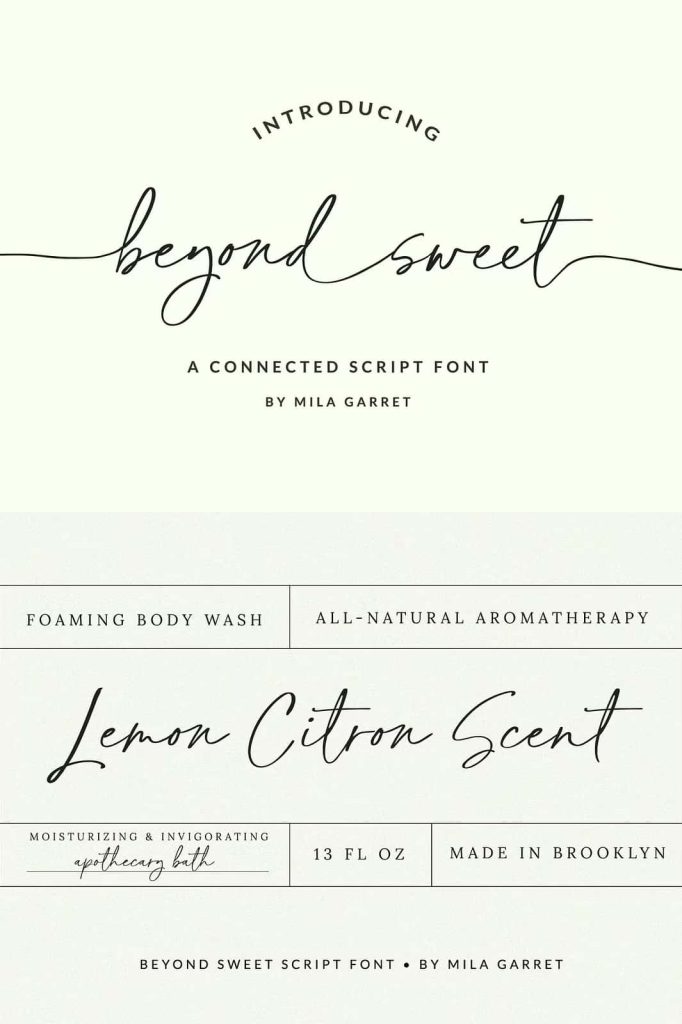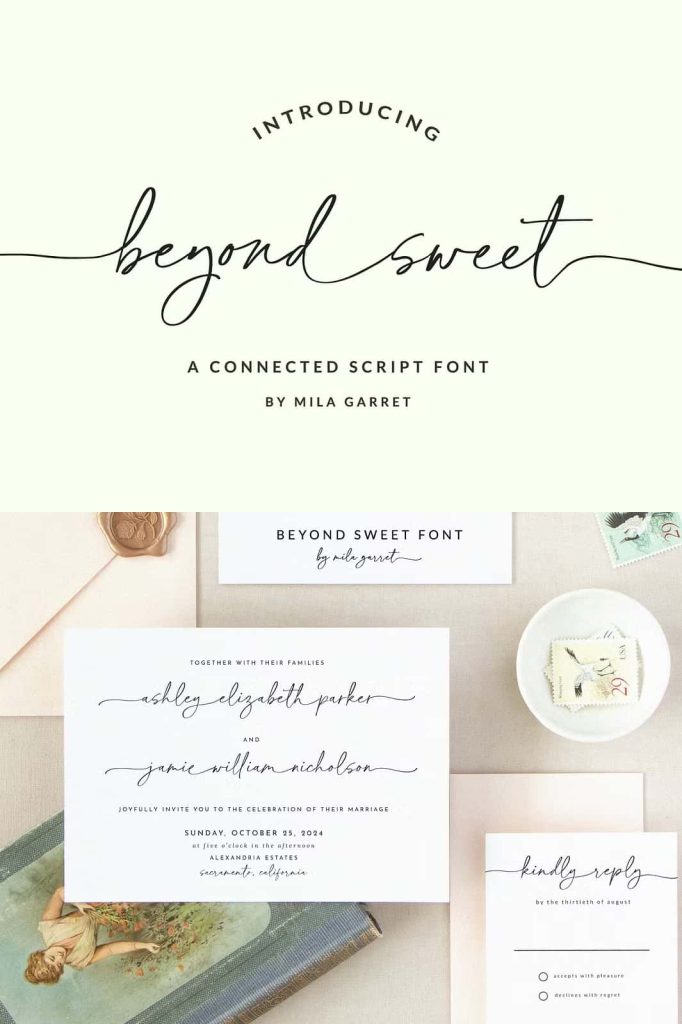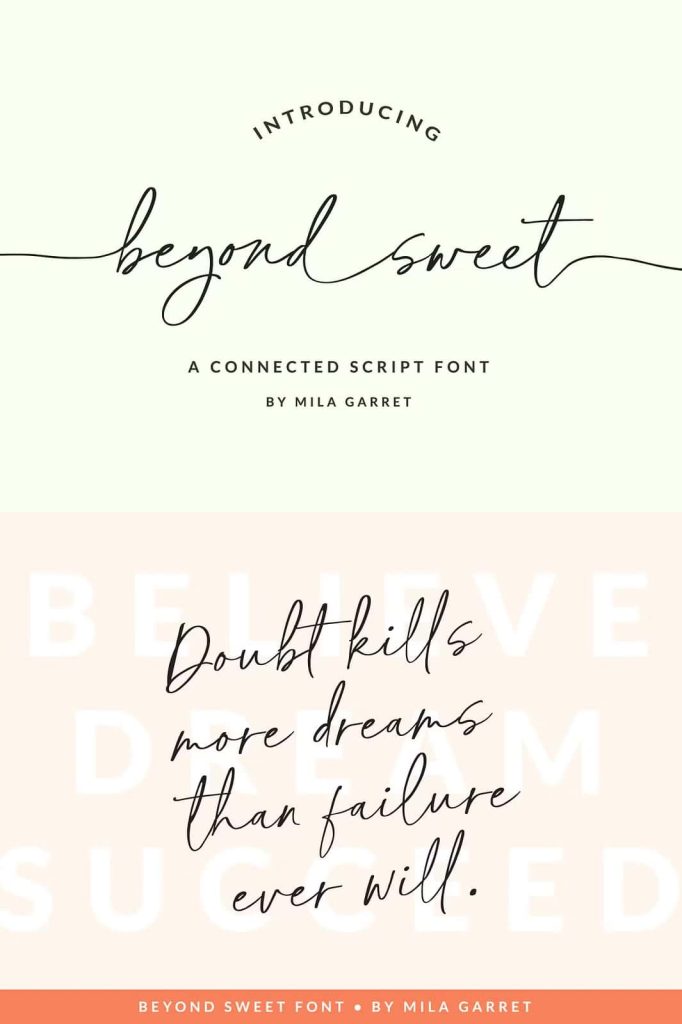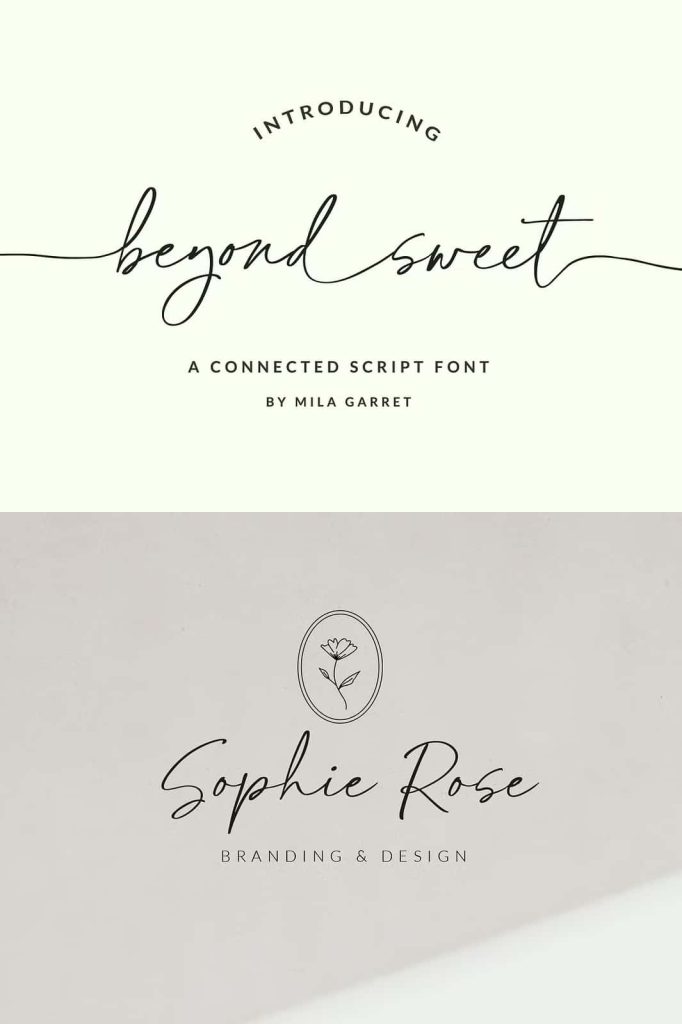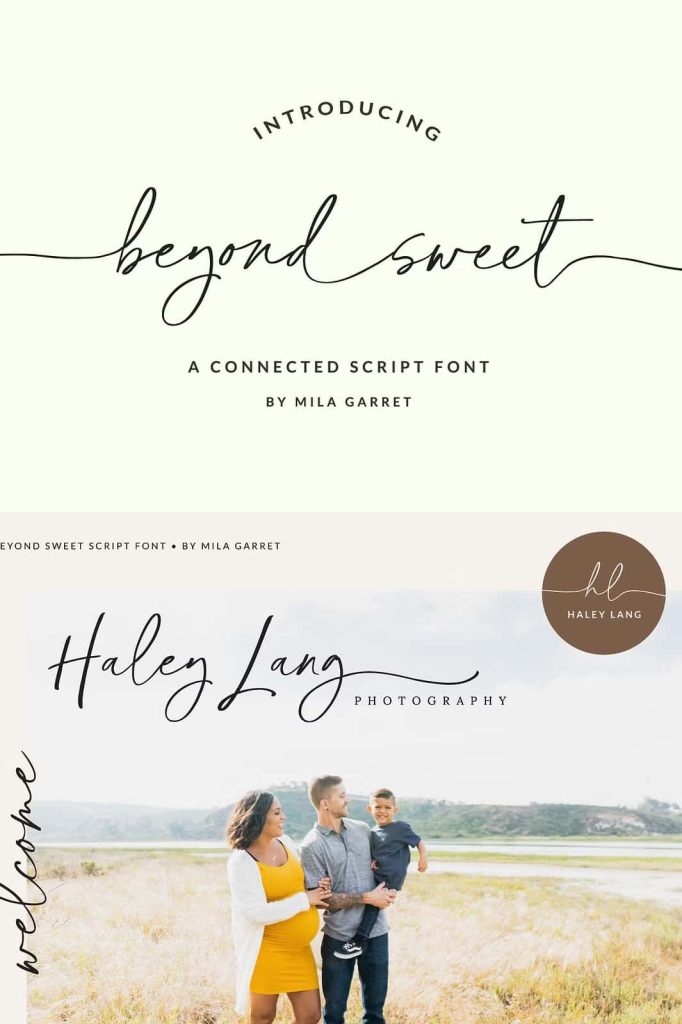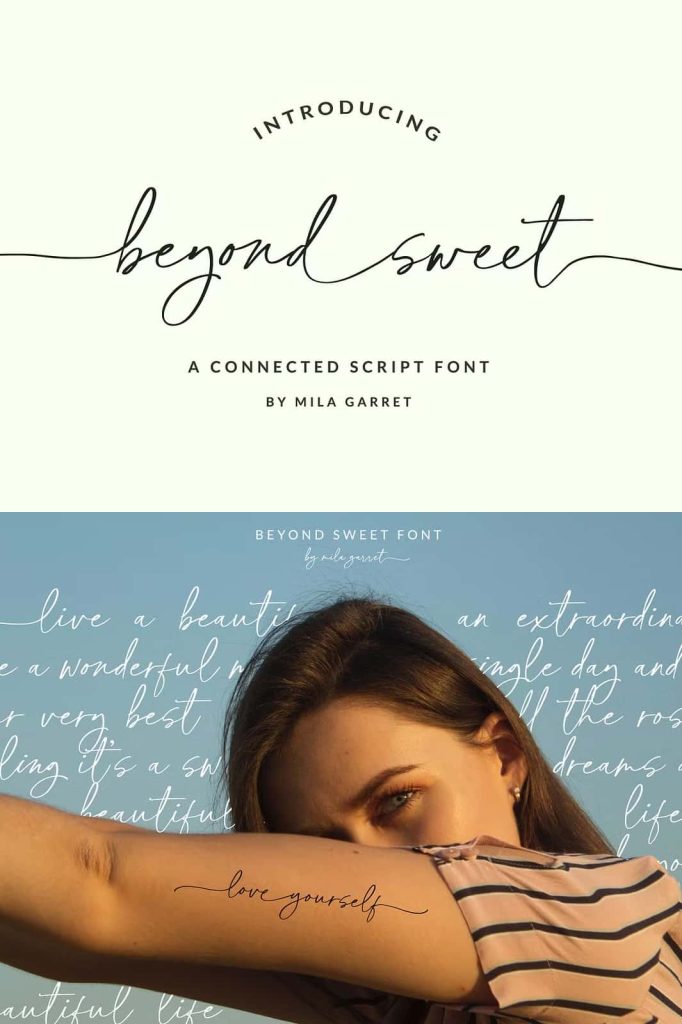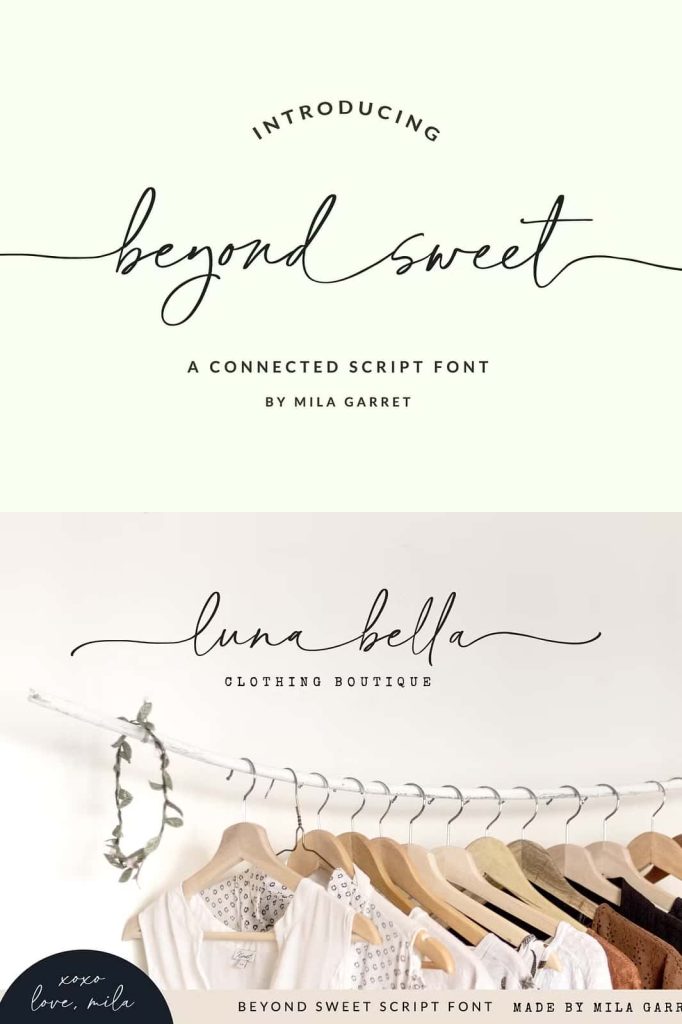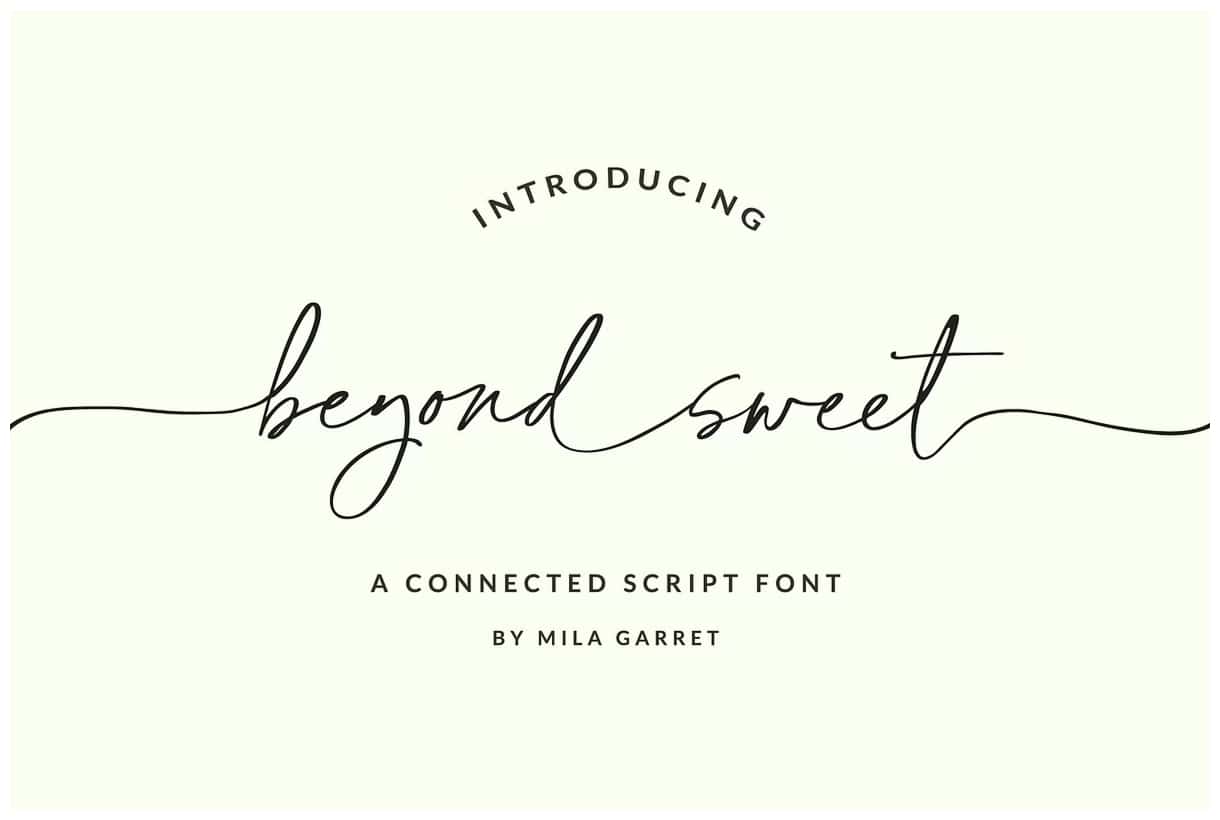
Beyond Sweet Handwriting Script Font
Beyond Sweet is a beautifully connected handwriting script font designed to bring elegance, sophistication, and authentic handwritten charm to your creative projects. Inspired by modern calligraphy and natural handwriting styles, this font features flowing letterforms that connect seamlessly, creating a smooth and graceful appearance. Its refined curves and carefully crafted details make it an excellent choice for designers who want to add a personal and luxurious touch to their typography.
Whether you are designing wedding stationery, creating a memorable logo, building a stylish brand identity, or developing engaging social media content, Beyond Sweet delivers the perfect balance of beauty and functionality. The font captures the natural movement of handwritten calligraphy while maintaining excellent readability, making it suitable for both digital and print applications.
Elegant Connected Handwriting Style
One of the most distinctive features of Beyond Sweet is its fully connected script design. Each character flows naturally into the next, creating a seamless handwritten effect that closely resembles real pen-to-paper calligraphy. This connected style helps create a polished and professional appearance while maintaining the warmth and personality of genuine handwriting.
The graceful strokes, smooth transitions, and balanced spacing give every word a sophisticated visual rhythm. This elegant structure allows designers to create typography that feels luxurious, romantic, and highly engaging. Whether used for large headlines or decorative text elements, Beyond Sweet consistently adds refinement and character to any design.
Beautiful Swashes for Creative Typography
Beyond Sweet includes a complete collection of beginning and ending lowercase swashes that provide additional styling options for your projects. These decorative elements allow designers to customize words and phrases with elegant flourishes, creating unique typographic compositions that stand out from ordinary script fonts.
In addition to standard swashes, the font also includes a special set of connector swashes designed to link words together seamlessly. These connector elements help create a truly handwritten calligraphic appearance, making text feel fluid and naturally written. By combining various swash options, designers can create sophisticated lettering arrangements that enhance invitations, branding materials, packaging designs, and more.
Perfect for Wedding and Event Design
Beyond Sweet is particularly well suited for wedding-related projects and special event stationery. Its romantic and elegant appearance complements formal occasions while adding a personal and heartfelt touch. The flowing script style creates a sense of luxury and celebration, making it ideal for high-end event materials.
Popular wedding and event applications include:
- Wedding invitations and RSVP cards
- Save-the-date announcements
- Menus and seating charts
- Event signage and welcome boards
- Thank-you cards and gift tags
- Bridal branding and promotional materials
The font’s sophisticated calligraphic qualities help transform simple text into elegant design elements that enhance the overall presentation of any event.
Ideal for Branding and Creative Projects
Beyond Sweet offers exceptional versatility beyond wedding applications. Its stylish handwritten appearance makes it a valuable resource for branding and marketing projects that require authenticity and elegance. Businesses seeking a more personal and approachable visual identity can use this font to create memorable brand experiences.
This font works beautifully for:
- Handwritten logos and wordmarks
- Boutique and luxury branding
- Fashion and beauty businesses
- Website headers and hero sections
- Social media graphics and quotes
- Product packaging and labels
- Blog graphics and promotional content
- Personal branding and creative portfolios
Its combination of elegance and readability ensures that designs remain visually appealing while effectively communicating their intended message.
Why Choose Beyond Sweet Handwriting Script Font?
- Beautiful connected handwriting script style
- Inspired by authentic modern calligraphy
- Includes beginning and ending lowercase swashes
- Features special connector swashes for seamless word linking
- Creates elegant and professional typography
- Perfect for wedding stationery and event materials
- Excellent for logos, branding, and packaging design
- Suitable for both print and digital applications
- Adds personality, sophistication, and visual appeal
Elevate Your Designs with Handwritten Elegance
Beyond Sweet Handwriting Script Font gives designers the freedom to create stunning typography with a natural handwritten feel and refined calligraphic style. Its flowing connections, decorative swashes, and elegant letterforms provide countless opportunities for creative expression. Whether you are designing wedding invitations, developing a luxury brand, creating engaging social media content, or producing stylish marketing materials, this font helps you achieve beautiful and professional results.
With its graceful appearance, versatile features, and authentic handwritten character, Beyond Sweet stands out as a valuable addition to any designer’s font library. It brings sophistication, warmth, and artistic beauty to every project, allowing your typography to leave a lasting impression.